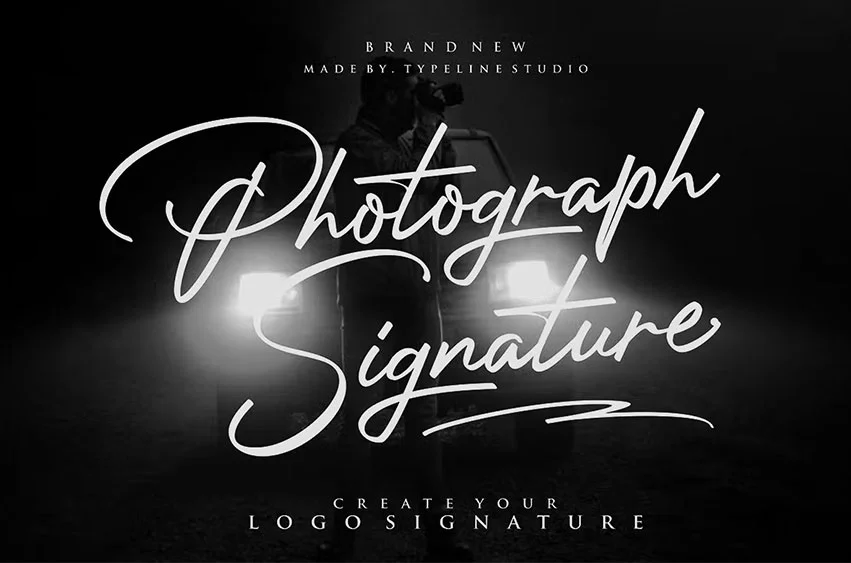
Photograph Signature Font is perfect for creating signature logos or logo signatures and watermarks for a photography studio, personal, or branding. This font has a lowercase alternative which is very similar to handwriting using a pen so it is suitable for signatures, logos, watermark photos, and many more.